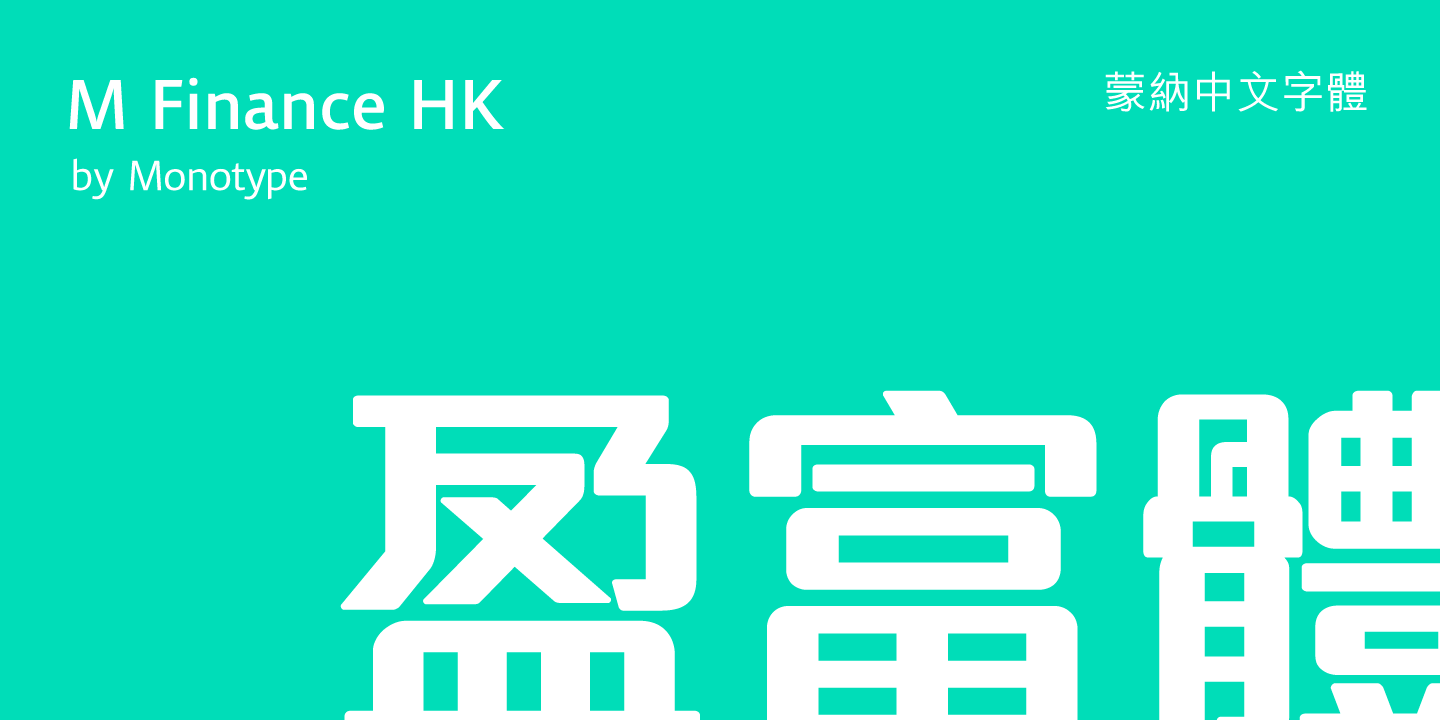
The M Finance HK Font is an excellent choice for a specialized range of design applications that demand a professional, precise, and highly legible aesthetic, particularly within the financial and corporate sectors. Imagine it providing clear and authoritative figures and text for annual reports, lending a modern yet trustworthy appearance to investment brochures, or ensuring impeccable readability for financial dashboards and data visualizations. Its structured design also makes it ideal for corporate branding materials, legal documents, and any project where accuracy, clarity, and a sophisticated, no-nonsense presentation are paramount.
What makes M Finance HK Font so exciting is its meticulous design optimized for legibility in numerical data and complex information. It offers a clean, crisp appearance with carefully balanced proportions and subtle details that prevent visual fatigue, even in dense financial tables. This font often includes features like tabular figures (numbers with consistent width) that ensure columns of data align perfectly, a crucial aspect in financial reporting. Its understated elegance ensures that the focus remains on the information, while still conveying a sense of professionalism and reliability.
The M Finance HK Font family is typically designed to offer a practical range of weights suitable for various applications within its specialized field. You'll often find options like Regular, Medium, and Bold, allowing designers to create clear hierarchies for headlines, subheadings, and extensive body text without compromising the font's core attributes. These weights maintain the consistent, precise forms and excellent legibility that define M Finance HK Font, ensuring a cohesive and highly functional aesthetic across all your projects. Explore its capabilities for your next data-driven design – M Finance HK Font Free Download is available now!